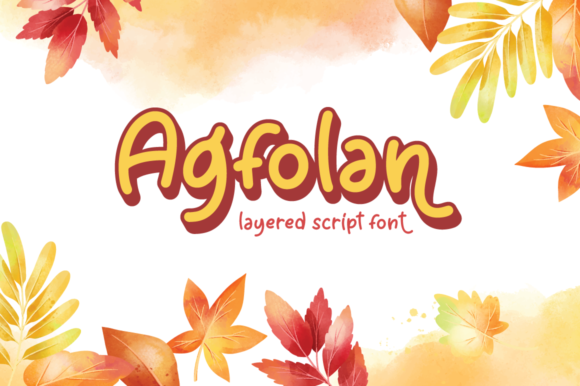
The Agfolan Font: A Simple yet Powerful Handwritten Delight
Have you ever been in the middle of a design project, and suddenly, you’re stuck on finding the perfect font? I certainly have! It was a sunny Saturday afternoon, and I was working on a fun craft project for a client who wanted a friendly, approachable vibe. I scoured through my font library, but nothing seemed quite right. That’s when I stumbled upon the Agfolan font. ✨
As soon as I saw it, I knew I had found what I was looking for. Agfolan is a simple and flowing handwritten font that immediately caught my attention. Its adaptability and charm won me over, and I couldn’t wait to dive deeper into its features and capabilities.
An Honest Review of Agfolan Font
What I Love About Agfolan Font
- ✨ Simple yet elegant: Agfolan’s clean lines and flowing curves make it perfect for a wide range of design projects.
- ✅ Highly adaptable: Whether you’re working on a craft project, a social media graphic, or a full-fledged branding campaign, Agfolan fits in seamlessly.
- 💕 Fun and friendly touch: This font adds a playful vibe to any design, making it ideal for projects that require a personal touch.
While Agfolan is an excellent font, it’s not without its quirks. 🤔 For instance:
- ⚠️ Limited multilingual support: Agfolan’s character set is mostly limited to English and some European languages.
- ⚠️ No condensed or extended styles: If you need a font with varying widths, Agfolan might not be the best choice.
The Story Behind Agfolan Font
Agfolan was designed with the intention of creating a simple, yet elegant handwritten font that could be used in a variety of design projects. The designer aimed to craft a font that would add a touch of warmth and personality to any design, making it perfect for crafters, designers, and creative hobbyists.
Q: What type of projects is Agfolan best suited for?
Agfolan is a versatile font that can be used in a wide range of projects, including crafts, social media graphics, branding campaigns, and more.
Q: Is Agfolan a multilingual font?
Agfolan has limited multilingual support, primarily covering English and some European languages.